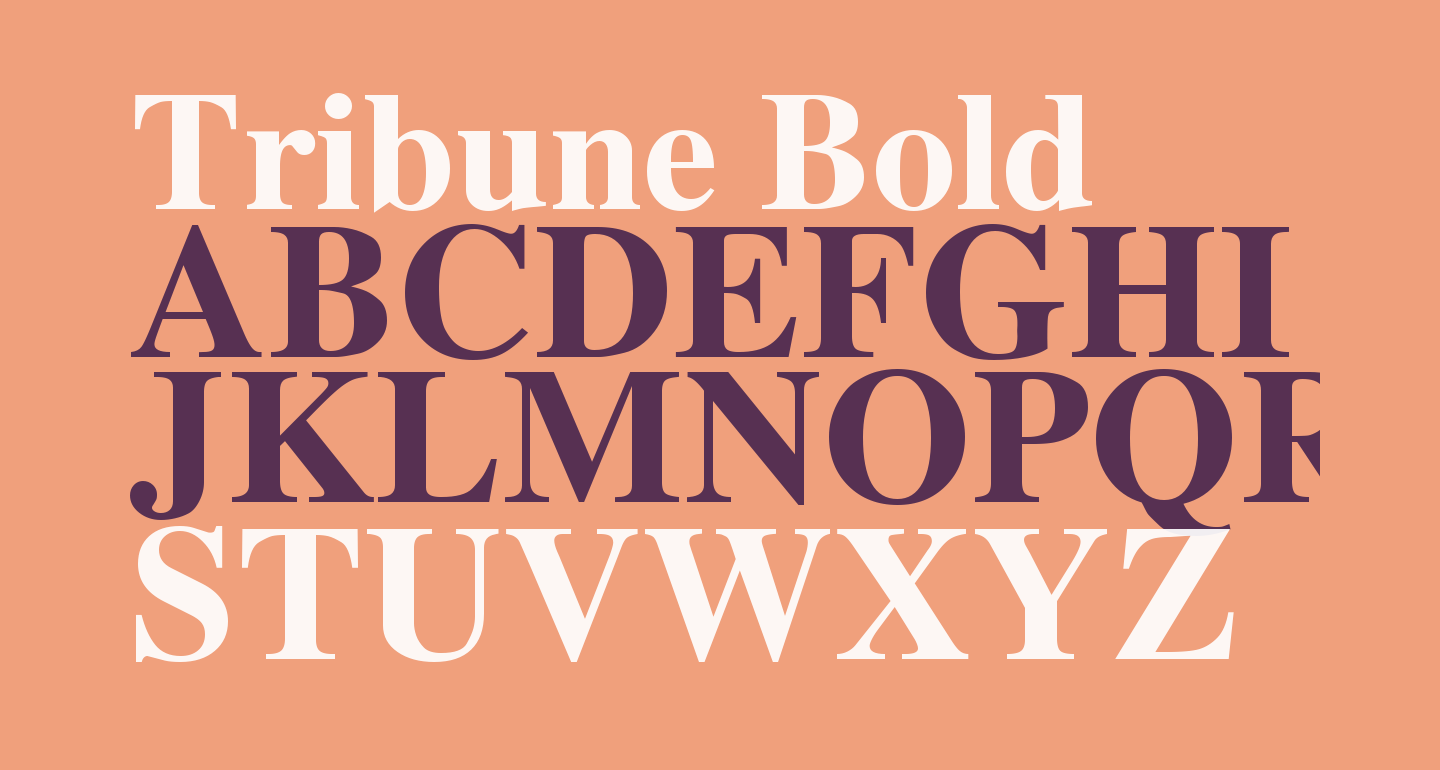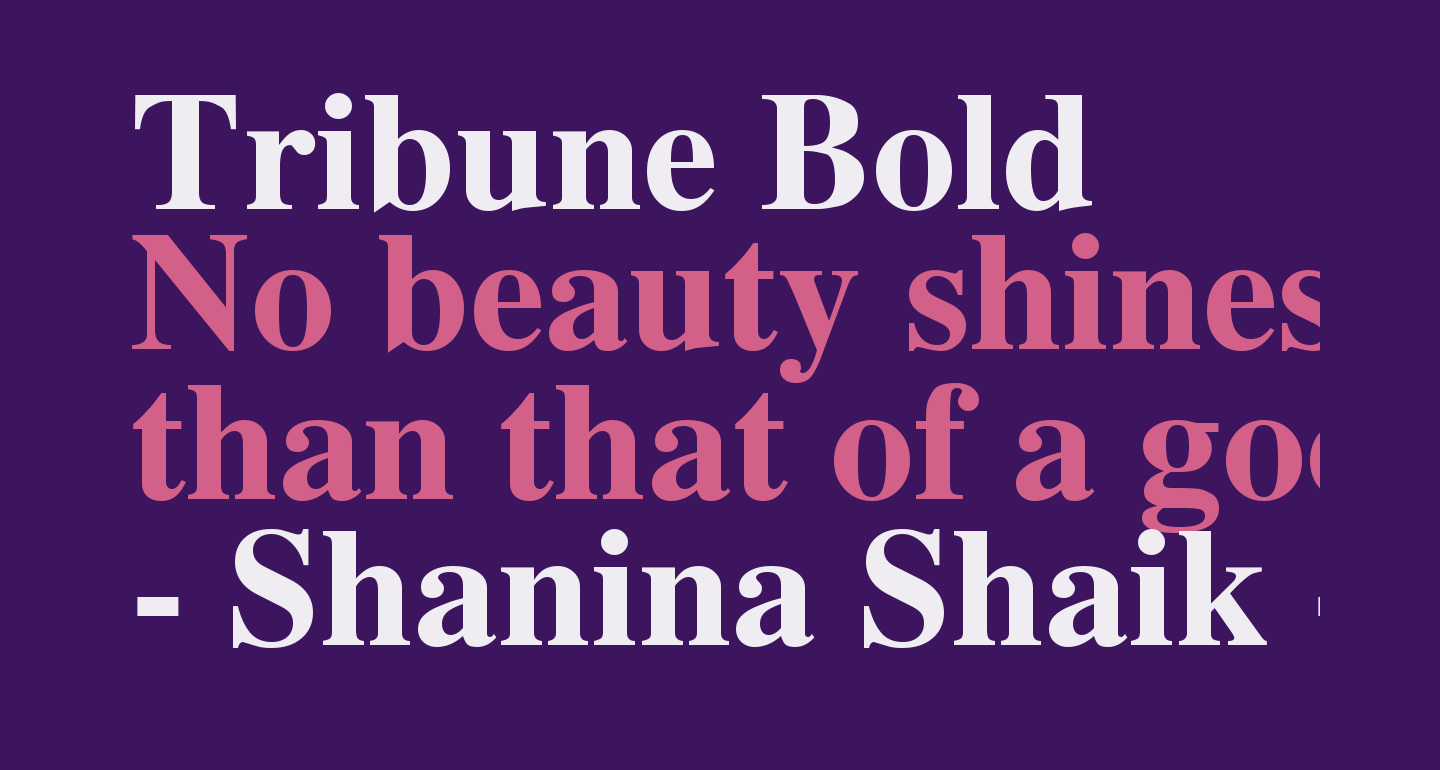
The Tribune Font Name . enter your own text and play with font size for the full experience. Download tribun typeface, a serif font family made with the aim of having a newspaper effect. Tribune regular is the perfect font for all your fun designs. tribune a true type format, with regular style available for mac & pc.its character set contain upper & lowercase alphabets and numbers. June 4, 2019 featured in serif. See how to download tribune regular for free! Identify fonts with our font finder tool using an image or photo. Whatthefont is available for both ios and android devices. you can use the tribune to create interesting designs, covers, shop and store name and logos. Also, the tribune font is perfect for branding projects, housewares designs, product packaging, or simply as a stylish. a great choice for highlighting your design elements. The font subfamily is regular. Experience the classic allure of free newspaper fonts.
The font subfamily is regular. Experience the classic allure of free newspaper fonts. enter your own text and play with font size for the full experience. Identify fonts with our font finder tool using an image or photo. you can use the tribune to create interesting designs, covers, shop and store name and logos. Tribune regular is the perfect font for all your fun designs. See how to download tribune regular for free! June 4, 2019 featured in serif. Download tribun typeface, a serif font family made with the aim of having a newspaper effect. Also, the tribune font is perfect for branding projects, housewares designs, product packaging, or simply as a stylish.
The Tribune Font Name Download tribun typeface, a serif font family made with the aim of having a newspaper effect. Whatthefont is available for both ios and android devices. Also, the tribune font is perfect for branding projects, housewares designs, product packaging, or simply as a stylish. tribune a true type format, with regular style available for mac & pc.its character set contain upper & lowercase alphabets and numbers. Tribune regular is the perfect font for all your fun designs. See how to download tribune regular for free! a great choice for highlighting your design elements. Download tribun typeface, a serif font family made with the aim of having a newspaper effect. Identify fonts with our font finder tool using an image or photo. June 4, 2019 featured in serif. enter your own text and play with font size for the full experience. The font subfamily is regular. you can use the tribune to create interesting designs, covers, shop and store name and logos. Experience the classic allure of free newspaper fonts.
Chicago Tribune Font Timeless Elegance Unveiled The Tribune Font Name The font subfamily is regular. Also, the tribune font is perfect for branding projects, housewares designs, product packaging, or simply as a stylish. Download tribun typeface, a serif font family made with the aim of having a newspaper effect. Tribune regular is the perfect font for all your fun designs. tribune a true type format, with regular style available. The Tribune Font Name.
Tribune Bold free Font What Font Is The Tribune Font Name The font subfamily is regular. a great choice for highlighting your design elements. tribune a true type format, with regular style available for mac & pc.its character set contain upper & lowercase alphabets and numbers. Tribune regular is the perfect font for all your fun designs. Experience the classic allure of free newspaper fonts. See how to download. The Tribune Font Name.
Chicago Tribune Font Timeless Elegance Unveiled The Tribune Font Name a great choice for highlighting your design elements. The font subfamily is regular. June 4, 2019 featured in serif. Download tribun typeface, a serif font family made with the aim of having a newspaper effect. Whatthefont is available for both ios and android devices. tribune a true type format, with regular style available for mac & pc.its character. The Tribune Font Name.
Tribune Bold free Font What Font Is The Tribune Font Name Download tribun typeface, a serif font family made with the aim of having a newspaper effect. tribune a true type format, with regular style available for mac & pc.its character set contain upper & lowercase alphabets and numbers. Whatthefont is available for both ios and android devices. Experience the classic allure of free newspaper fonts. enter your own. The Tribune Font Name.
Tribune Bold truetype font The Tribune Font Name Whatthefont is available for both ios and android devices. tribune a true type format, with regular style available for mac & pc.its character set contain upper & lowercase alphabets and numbers. Download tribun typeface, a serif font family made with the aim of having a newspaper effect. Experience the classic allure of free newspaper fonts. The font subfamily is. The Tribune Font Name.
The Tribune Chandigarh Where to Read Today's ePaper Online? The Tribune Font Name See how to download tribune regular for free! a great choice for highlighting your design elements. Identify fonts with our font finder tool using an image or photo. Whatthefont is available for both ios and android devices. you can use the tribune to create interesting designs, covers, shop and store name and logos. enter your own text. The Tribune Font Name.
Chicago Tribune Font Timeless Elegance Unveiled The Tribune Font Name Tribune regular is the perfect font for all your fun designs. Also, the tribune font is perfect for branding projects, housewares designs, product packaging, or simply as a stylish. June 4, 2019 featured in serif. See how to download tribune regular for free! tribune a true type format, with regular style available for mac & pc.its character set contain. The Tribune Font Name.
La Tribune Font Download Fonts4Free The Tribune Font Name Tribune regular is the perfect font for all your fun designs. Whatthefont is available for both ios and android devices. a great choice for highlighting your design elements. Identify fonts with our font finder tool using an image or photo. June 4, 2019 featured in serif. See how to download tribune regular for free! tribune a true type. The Tribune Font Name.
Tribune Regular free Font What Font Is The Tribune Font Name Also, the tribune font is perfect for branding projects, housewares designs, product packaging, or simply as a stylish. Tribune regular is the perfect font for all your fun designs. enter your own text and play with font size for the full experience. you can use the tribune to create interesting designs, covers, shop and store name and logos.. The Tribune Font Name.